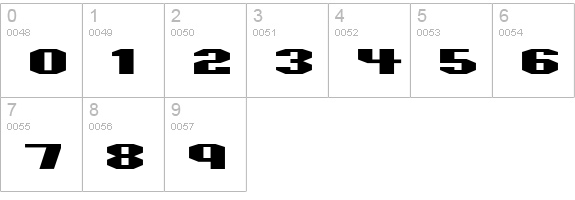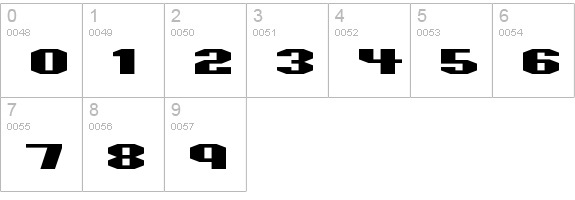
Motorcycle Emptiness Font Details
Introducing the Motorcycle Emptiness font, a bold and edgy typeface that exudes a rebellious spirit and a sense of adventure. This font perfectly captures the essence of the open road and the thrill of riding a motorcycle through vast expanses of emptiness. With its rugged yet stylish design, Motorcycle Emptiness is ideal for projects that require a touch of daring and freedom. This unique font is freely available to download at FontsMarket.com, making it easily accessible for designers, creatives, and enthusiasts alike. Whether you're working on a poster for a motorcycle rally, designing a logo for a biker club, or creating a striking website header, Motorcycle Emptiness is sure to make a bold statement. Embrace the spirit of freedom and individuality with the Motorcycle Emptiness font today.